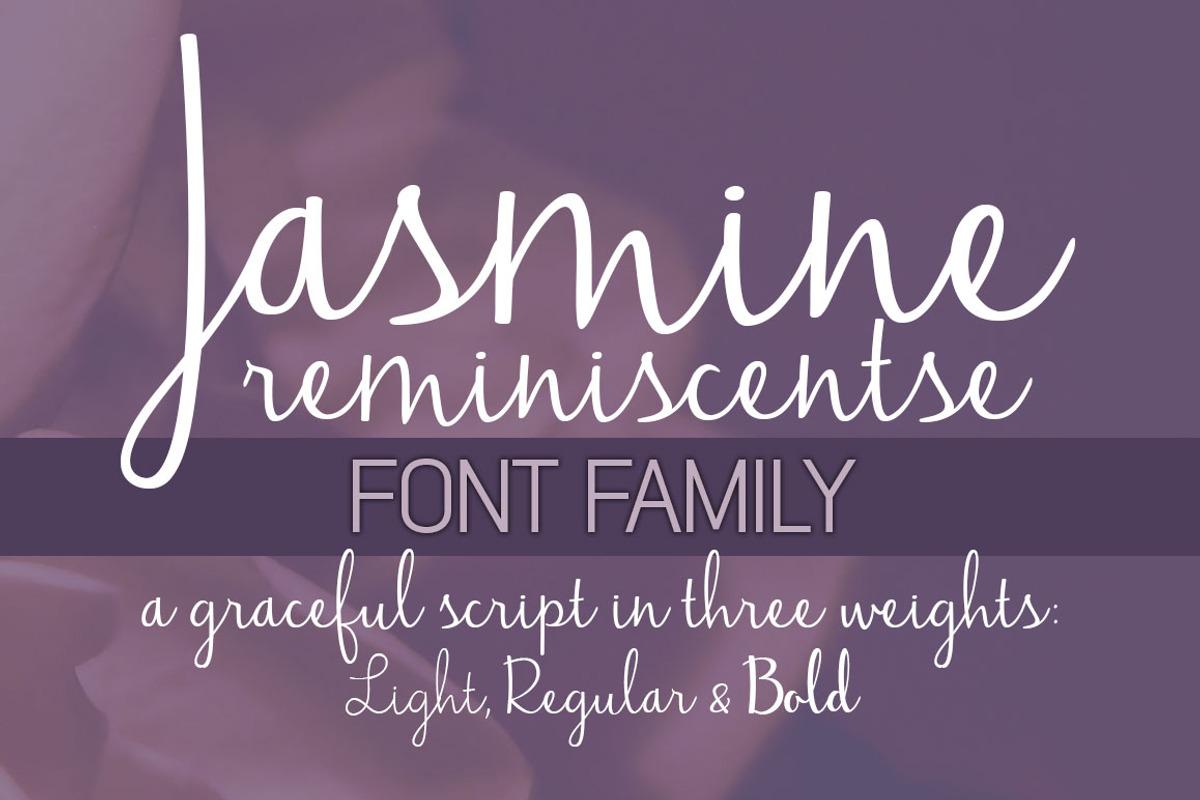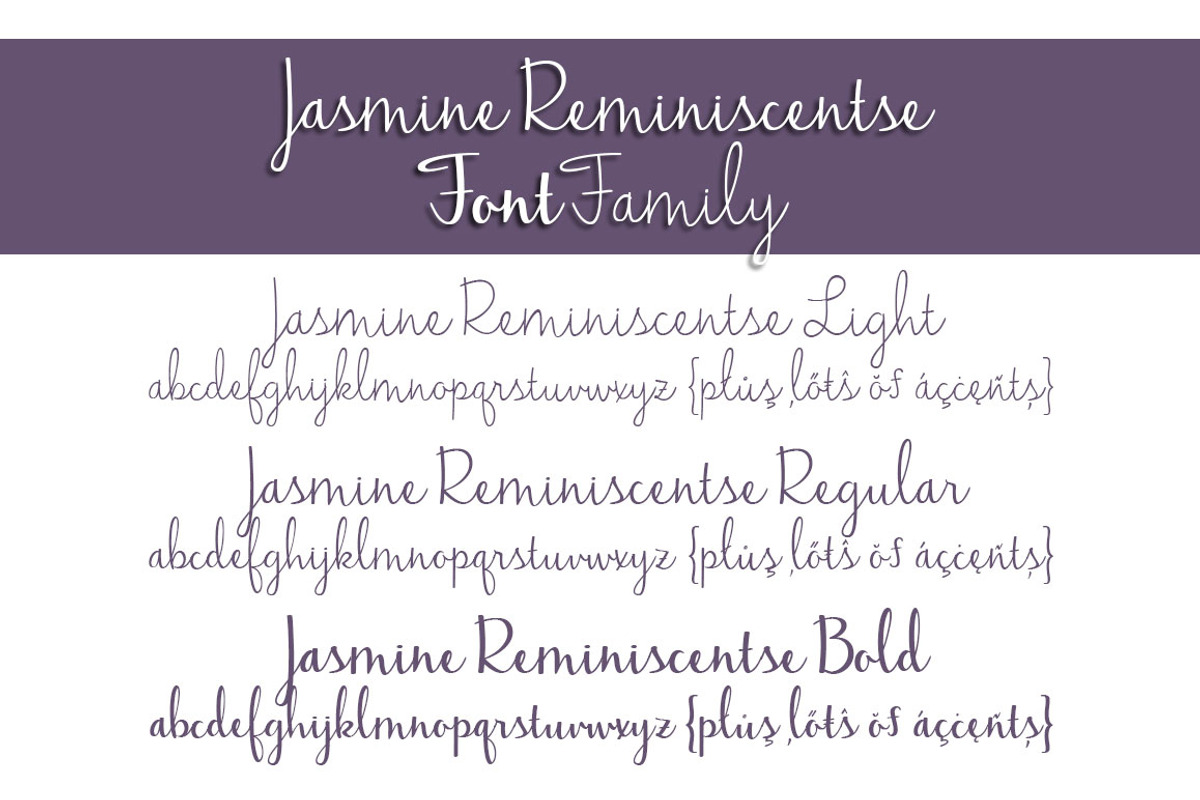
Jasmine Reminiscentse Font Family
Jasmine Reminiscentse Font Family by Brittney Murphy Design is a font selected for branding, posters, packaging, typography.
Why Jasmine Reminiscentse Font Family is worth a look
Jasmine Reminiscentse Font Family by Brittney Murphy Design fits naturally into Branding, posters, packaging, typography.